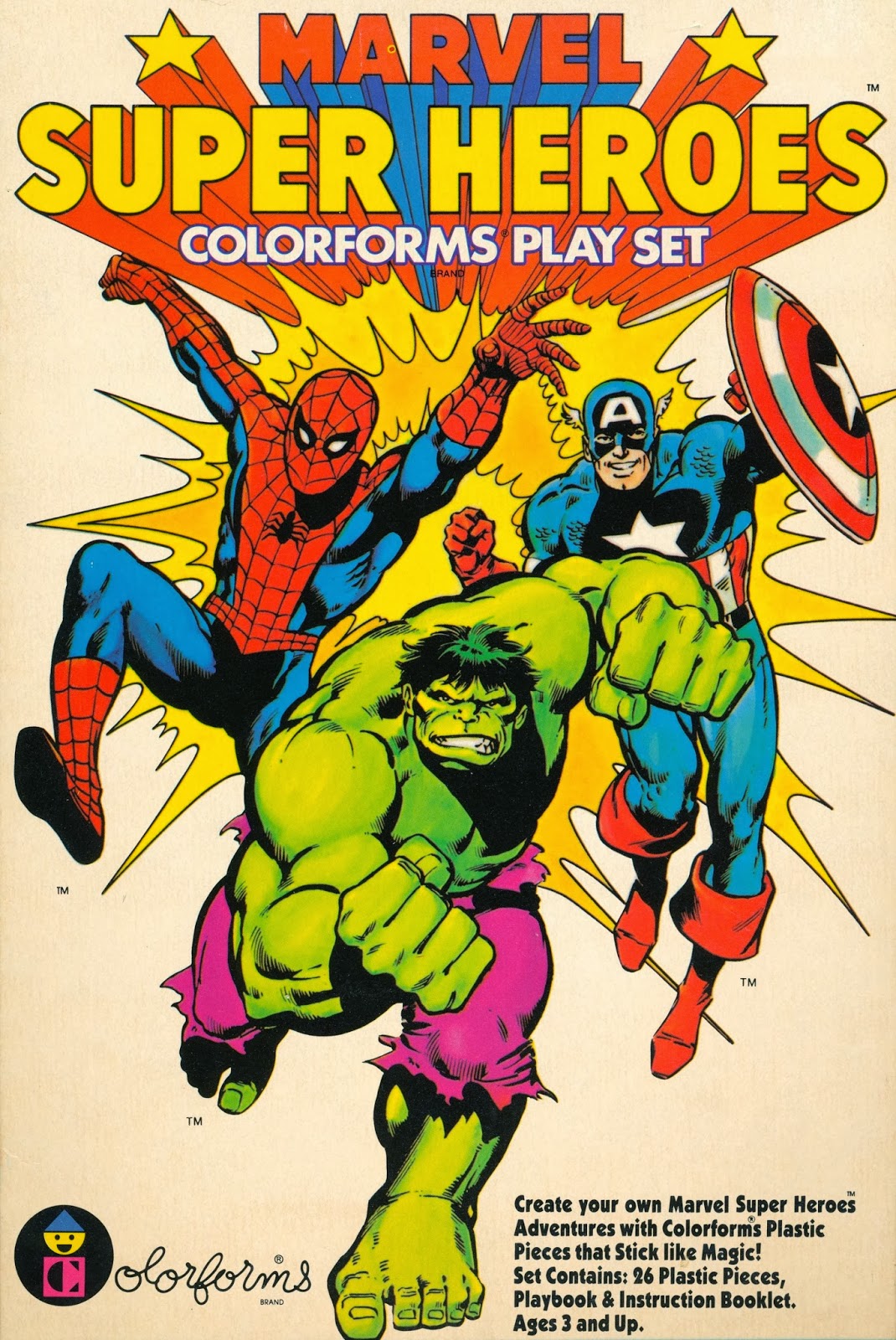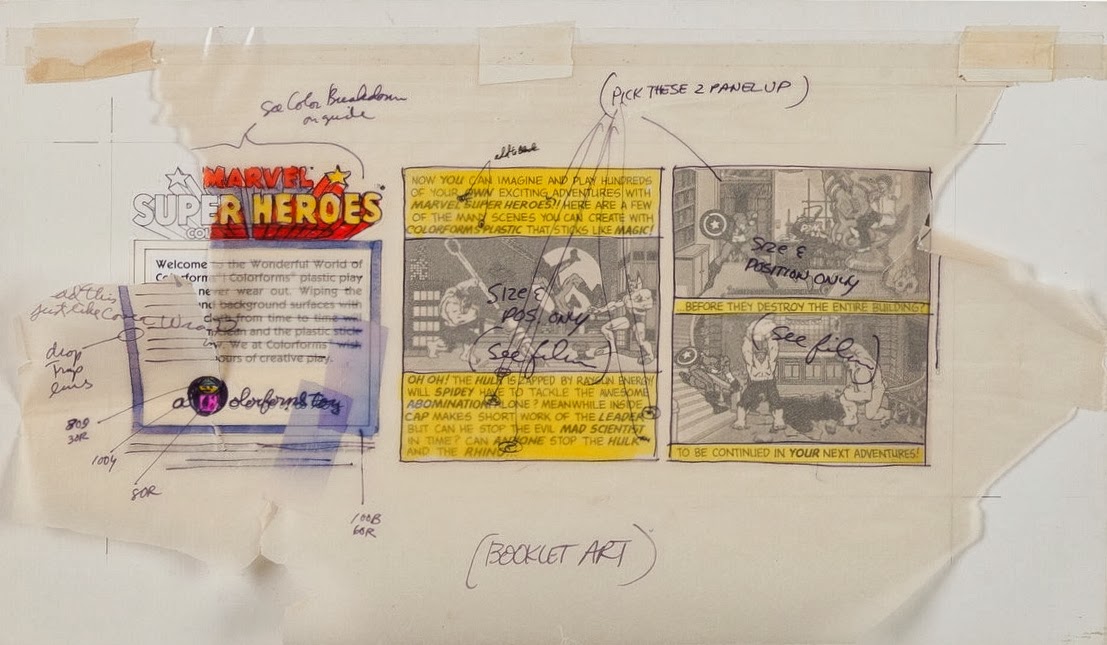
Lettering: Popeye, Olive Oyl, Brutus, Wimpy, Sweetpea and Jeep Mini-Banks
In 1979 Alper Industries, Inc. or its agency hired Continuity Associates for a packaging project. The company wanted to present King Features Syndicate characters (Popeye, Olive Oyl, Brutus, Wimpy, Sweetpea and Jeep) as mini-bank toys to coin-operated machine vendors.
Four mini-bank samples were adhered with two-sided tape then shrink-wrapped onto cardboard (8.1875 x 9.3125 inches or 20.8 x 23.65 centimeters) and sent to potential customers.
I did the lettering for “Popeye Sez:” and characters’ names. Someone else did the balloon lettering. Here are the pencil roughs that Neal Adams approved. I rubbed graphite on the back of the tracing paper and traced the letters onto kid finish Bristol board for inking. The original lettering was delivered to the client.
Rejected
The decal and mini-bank were inside a capsule. After peeling off the decal’s backing, the decal was positioned on the bank. A decal measured .9375 x 3 inches or 2.4 x 7.6 centimeters.
Lettering: Marvel Super Heroes
Neal Adams’ Continuity Associates produced artwork for Colorforms. In 1983 a “Marvel Super-Heroes Adventure Set” was being prepared. Neal told me that the client wanted bold, sans serif lettering. Originally, there was a hyphen between “Super” and “Heroes”, and “Adventure Set” would have been used below Spider-Man, Hulk and Captain American. Photostats were made of the artwork and lettering, and delivered to Colorforms. I don’t know who did the production for the play set box and booklet. The hyphen was removed, and “Adventure Set” was replaced with “Colorforms Play Set” which was set in type.
Original art scanned and stitched together
Original art
On January 19, Heritage Auctions sold the mechanicals, with a color guide, and proofs, with corrections and changes, for the play set box and booklet.
Logo and heads for box top side panels
Proof with corrections and changes
Detail of printed box top; the box top dimensions are 8 inches wide, 11.375 inches long and 1 inch deep or 20.3 centimeters wide, 28.9 centimeters long, and 2.5 centimeters deep.
Booklet mechanical with color specifications
Proof